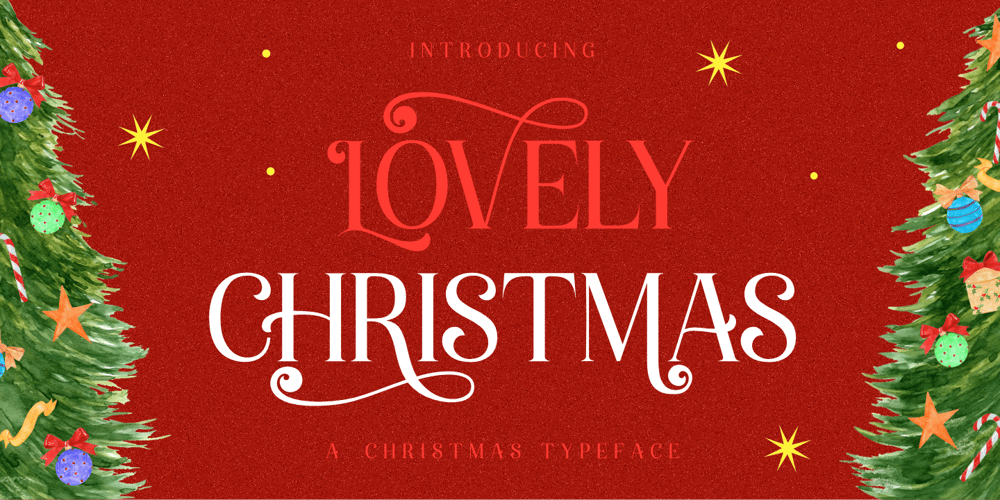
Lovely Christmas
Lovely Christmas font
Lovely Christmas Font Family was designed by Risca Anitawati and published by Reyrey Blue Std. Lovely Christmas contains 1 styles and family package options. Introducing, Lovely Christmas Typeface. This font has many extra swirly characters to give more playful and swirliness into the design. Lovely Christmas Typeface is well-suited for advertising, layout design for quotes or body copy, best used as a display for headings, logos, branding, magazines, product packaging, invitations. logotypes, and much more. It matches each of your holiday creations so add this font to your designs and make them come alive!Features :· All Uppercase and Lowercase· Number & Symbol· Supported Languages· Alternates· PUA EncodedHope you enjoy with our font!